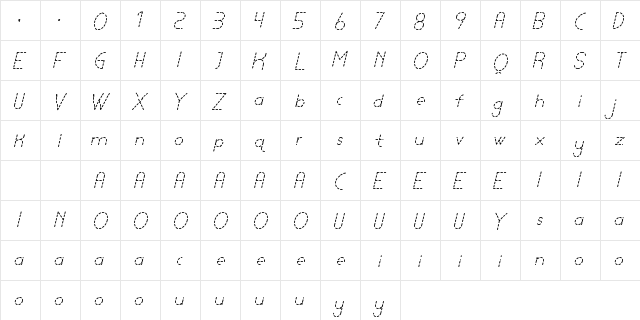
Lamborgini Light Italic Dash Regular
Design Context for Lamborgini Light Italic Dash Typeface
Lamborgini Light Italic Dash offers clean, dependable letterforms without strong stylistic allegiance, making it a practical choice for designers who need flexibility. The dynamic lean of this cut emphasises speed and emphasis in any layout. The delicate stroke weight brings airiness and refinement to layouts.